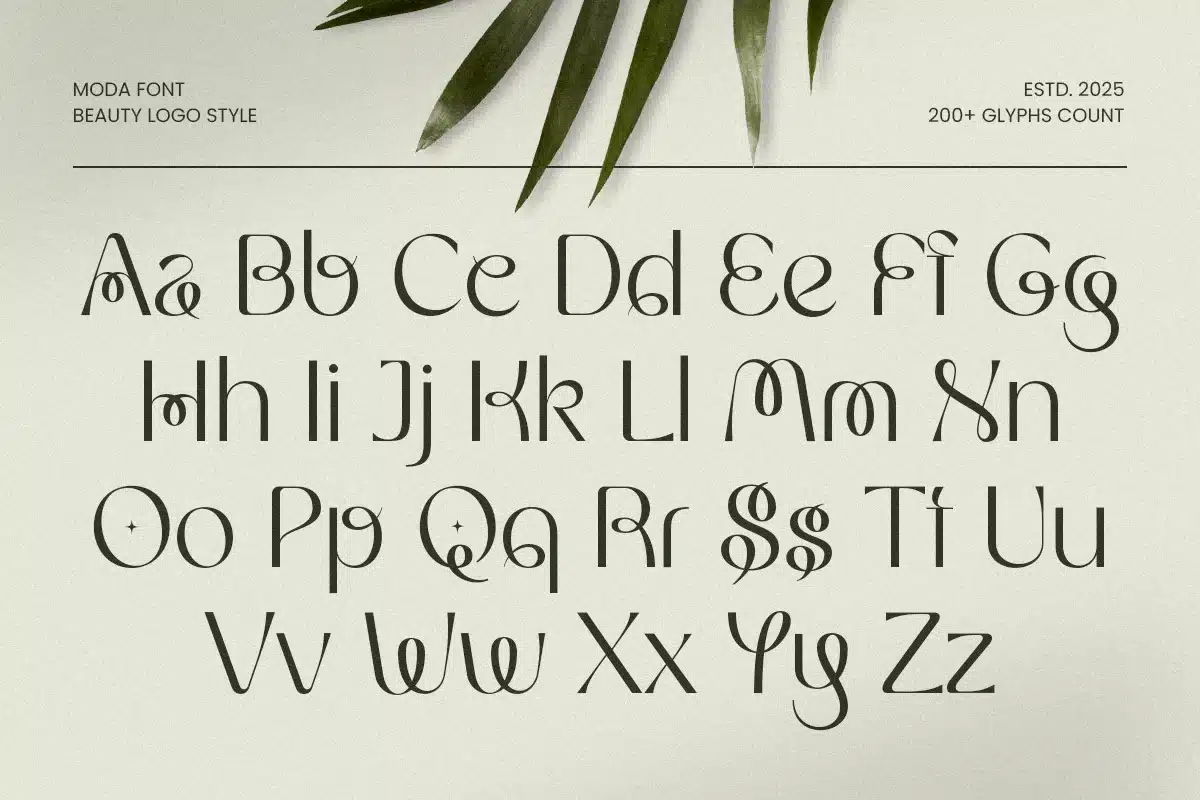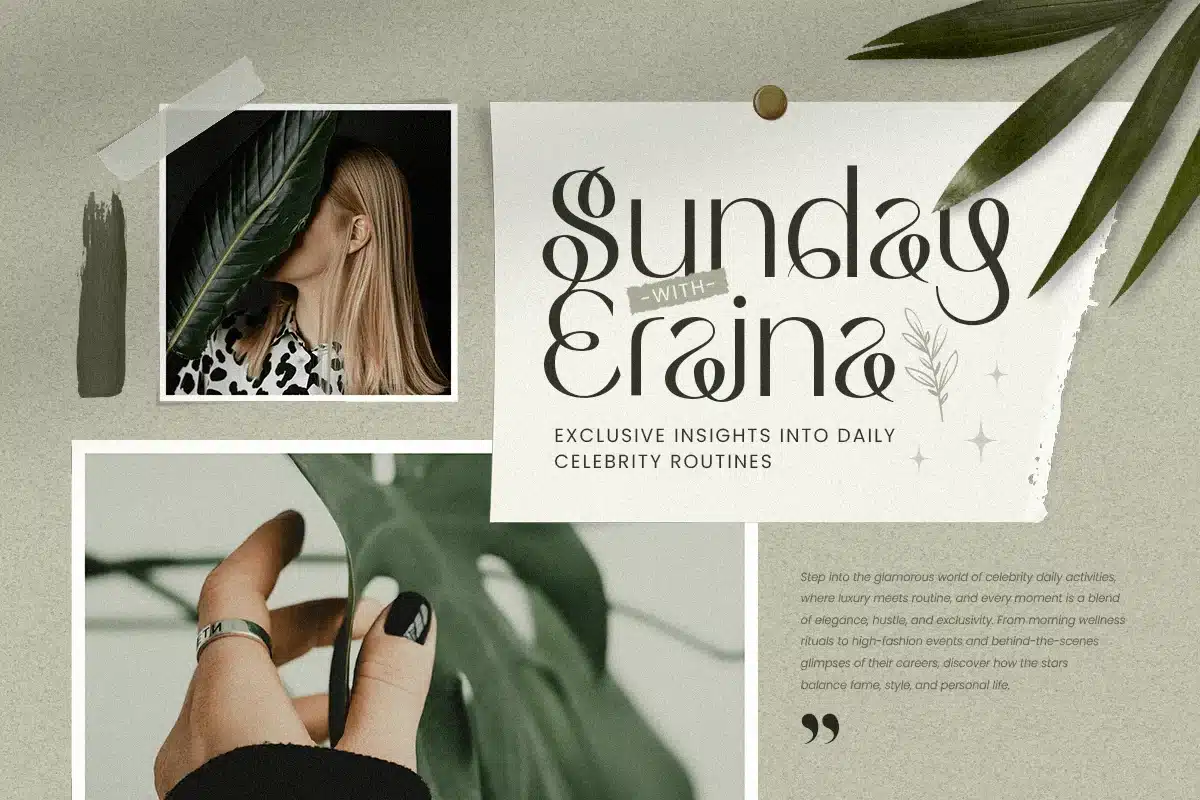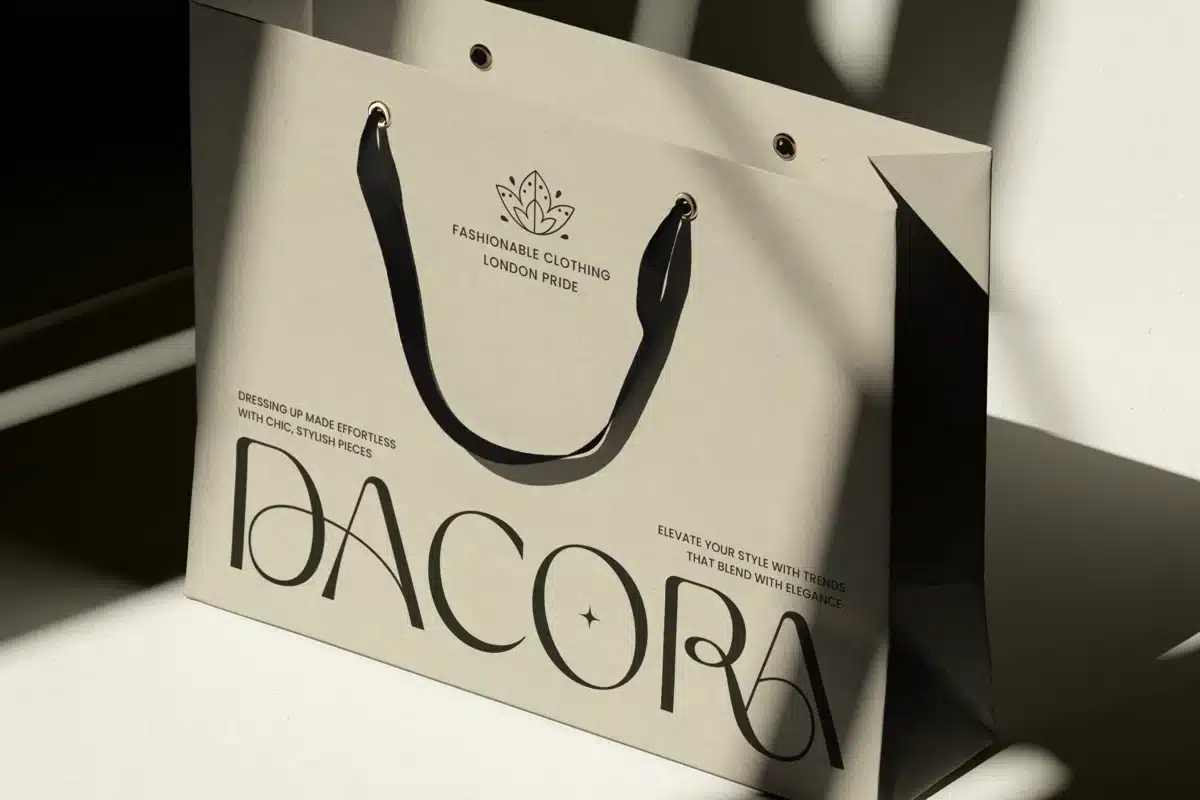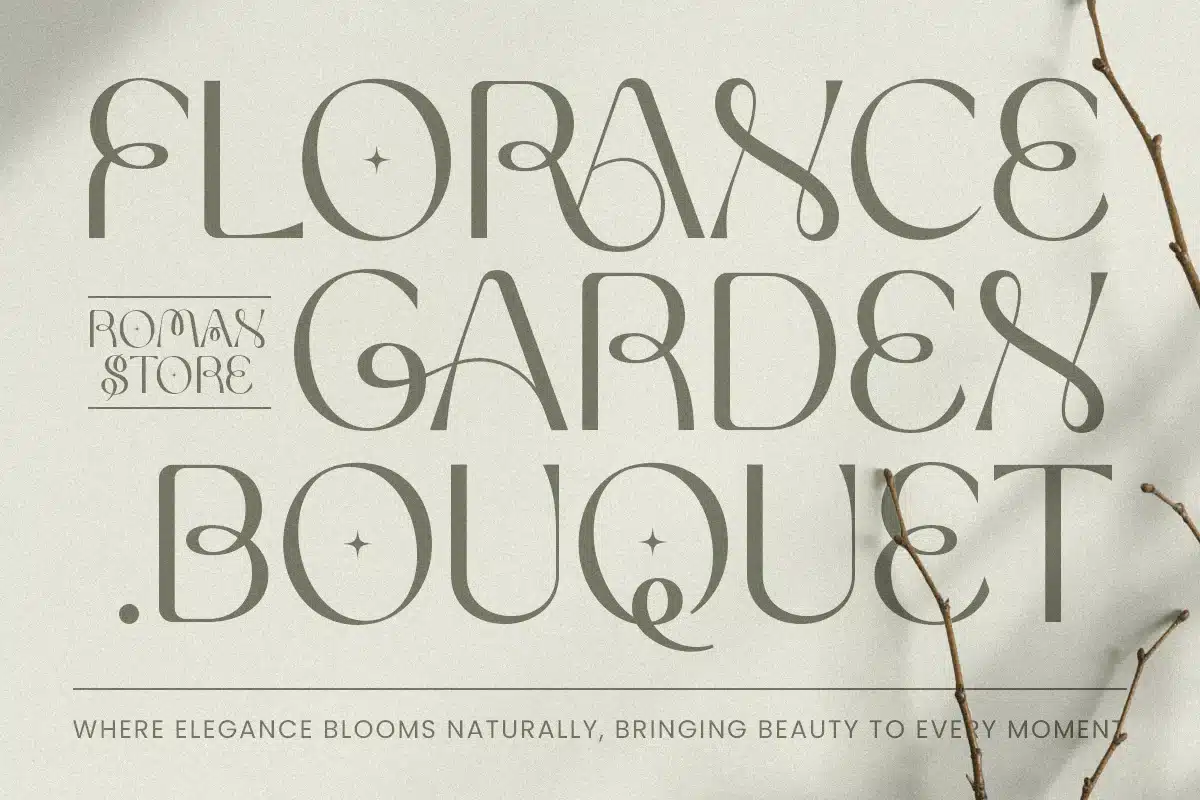
Moda – Beauty Logo Font
Moda is a beauty-focused logo font that blends chic sophistication with clean modern style. Designed for fashion, cosmetics, wellness, and editorial branding, Moda brings a high-end, soft aesthetic to your visual identity. Its refined curves and sleek lines make it perfect for logos, packaging, social media, and beauty campaigns that require an elegant, modern touch.
Inspired by the elegance of runway typography and luxury beauty branding, Moda reflects both trend and timelessness. It's highly legible yet stylish—perfect for empowering beauty brands, boutique studios, and lifestyle influencers who want to make a lasting impression.
Let Moda elevate your brand presence with its feminine charm and polished character, made to stand out in both digital and print.
Moda Beauty Logo Font Features:
- Elegant and Feminine Display Style
- Ideal for Logos, Beauty Products, Fashion & Social Media
- Punctuation, Numbers, and Symbols
- Uppercase and Lowercase
- Opentype Features